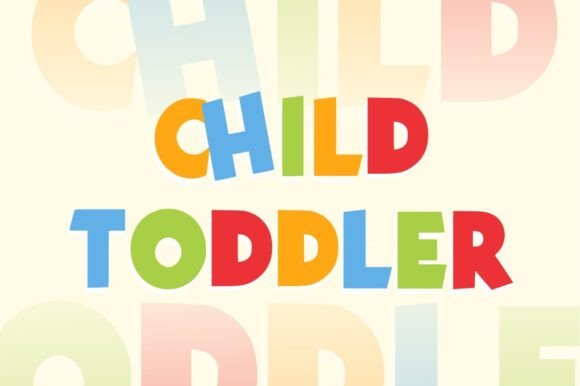
Introducing Child Toddler Font: The Ultimate Choice for Whimsical Designs
Are you looking for a font that can add a touch of magic to your designs? Look no further than the Child Toddler font, an authentically enchanting display font that is sure to infuse joy and fun wherever it’s used. In this article, we’ll take a closer look at the Child Toddler font, its features, and how it can be used to create playful and engaging designs.
The Charm of Child Toddler Font
Child Toddler font is a unique and captivating font that effortlessly exudes a whimsical charm. Its playful and fun design makes it perfect for use in a variety of applications, from kids’ apparel to party invitations and more. The font’s enchanting display style is sure to grab attention and leave a lasting impression.
One of the standout features of the Child Toddler font is its ability to add a playful touch to any design. Whether you’re creating a fun and quirky t-shirt for a kids’ birthday party or designing a colorful poster for a children’s event, this font is sure to deliver. Its charming and whimsical design makes it perfect for any project that requires a touch of playfulness.
Using Child Toddler Font on Kids’ T-Shirts
Kids’ t-shirts are a great way to showcase the Child Toddler font, and it’s a popular choice among designers and parents alike. The font’s playful and fun design makes it perfect for adding a personalized touch to kids’ apparel. Imagine a bright and colorful t-shirt with a fun design featuring the Child Toddler font – it’s sure to make any child stand out from the crowd.
When using the Child Toddler font on kids’ t-shirts, the possibilities are endless. You can use it to create fun and playful designs, such as cartoon characters, animals, or even a child’s name in a whimsical font. The font’s impressive display style makes it perfect for creating eye-catching designs that kids will love.
Key Features of Child Toddler Font
- Authentically enchanting display font: The Child Toddler font has a unique and captivating design that is sure to grab attention.
- Whimsical charm: The font’s playful and fun design makes it perfect for adding a touch of magic to any design.
- Playful and fun: The Child Toddler font is perfect for creating fun and engaging designs that kids will love.
- Impressive display style: The font’s impressive display style makes it perfect for creating eye-catching designs.
Tips for Using Child Toddler Font
Here are a few tips for using the Child Toddler font in your designs:
- Use it for kids’ apparel: The Child Toddler font is perfect for creating fun and playful designs for kids’ t-shirts, hoodies, and more.
- Pair it with bright colors: The font’s playful and fun design pairs perfectly with bright and colorful backgrounds.
- Experiment with different designs: Don’t be afraid to try out different designs and ideas when using the Child Toddler font.
In conclusion, the Child Toddler font is a unique and captivating font that is sure to add a touch of magic to any design. Its playful and fun design makes it perfect for use in a variety of applications, from kids’ apparel to party invitations and more. With its impressive display style and whimsical charm, the Child Toddler font is sure to deliver eye-catching designs that kids will love.
- What is the Child Toddler font?: The Child Toddler font is an authentically enchanting display font that is perfect for adding a touch of magic to any design.
- Is the Child Toddler font suitable for kids’ apparel?: Yes, the Child Toddler font is perfect for creating fun and playful designs for kids’ t-shirts, hoodies, and more.